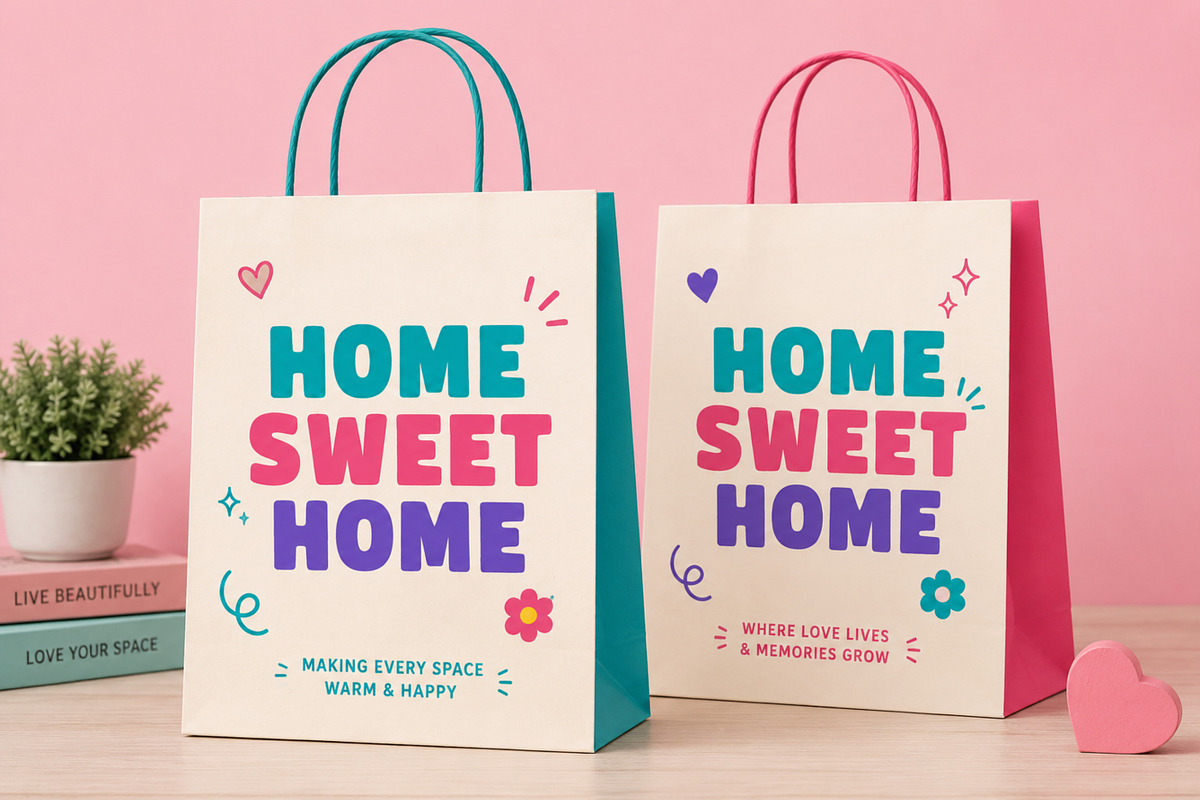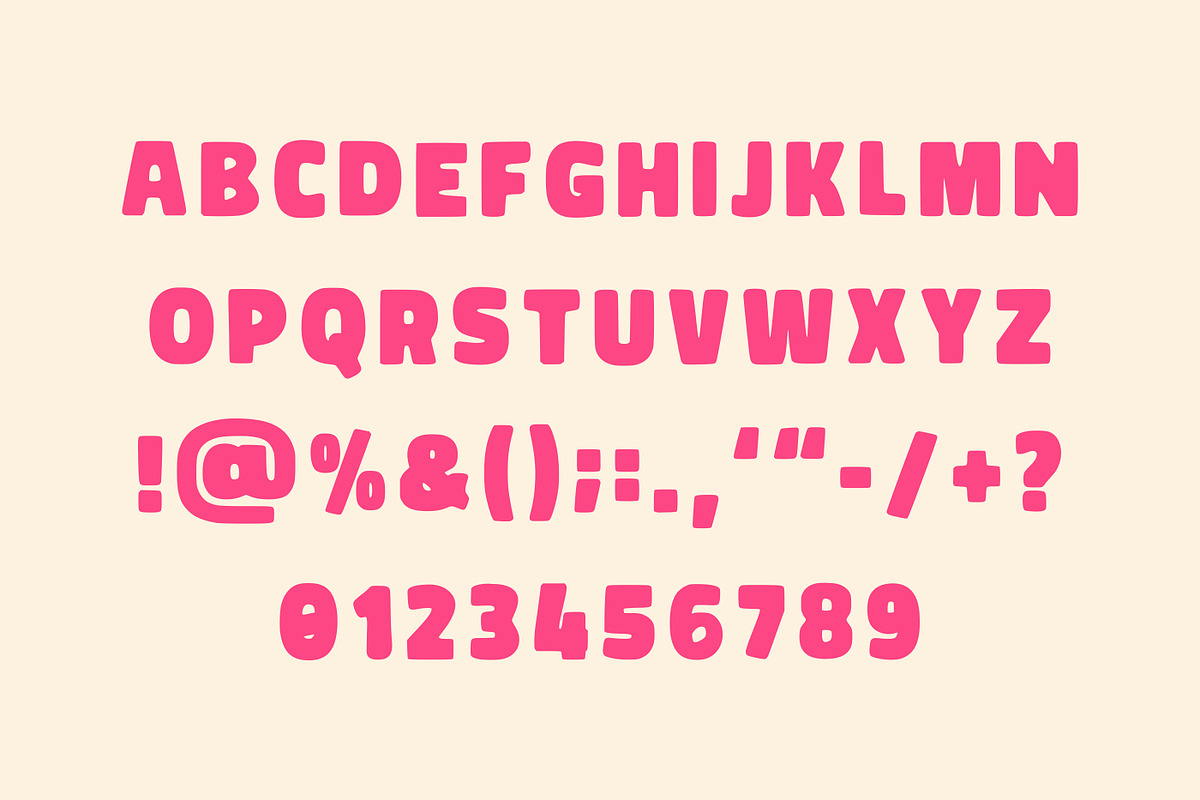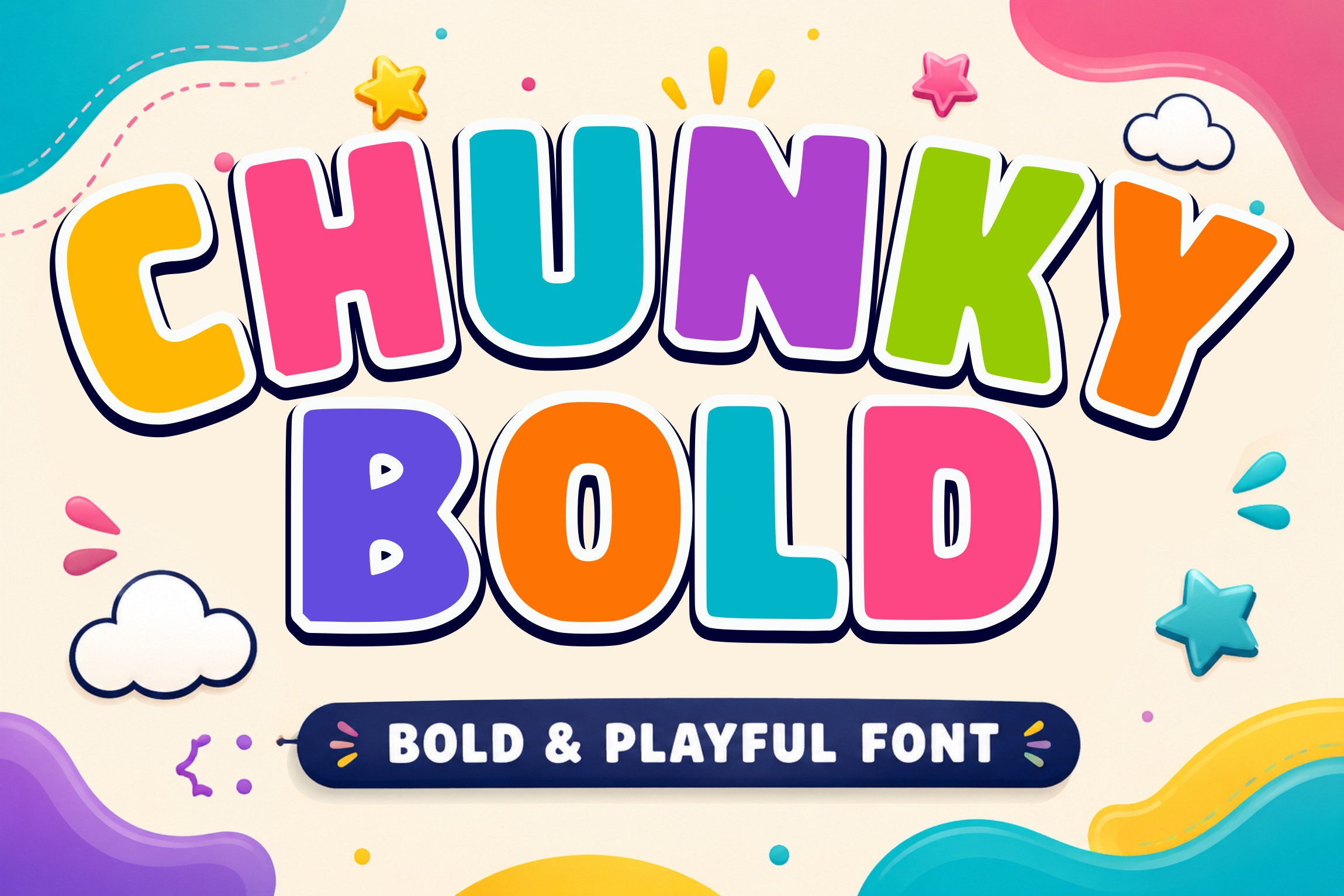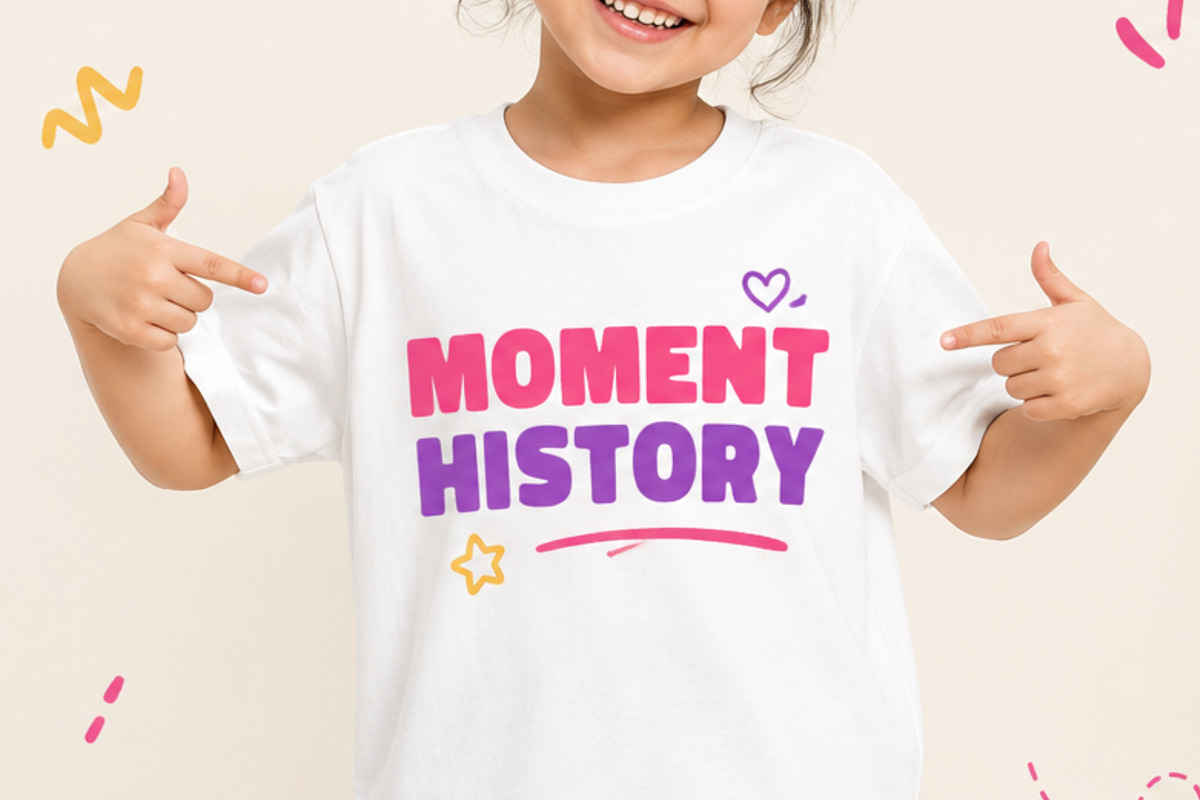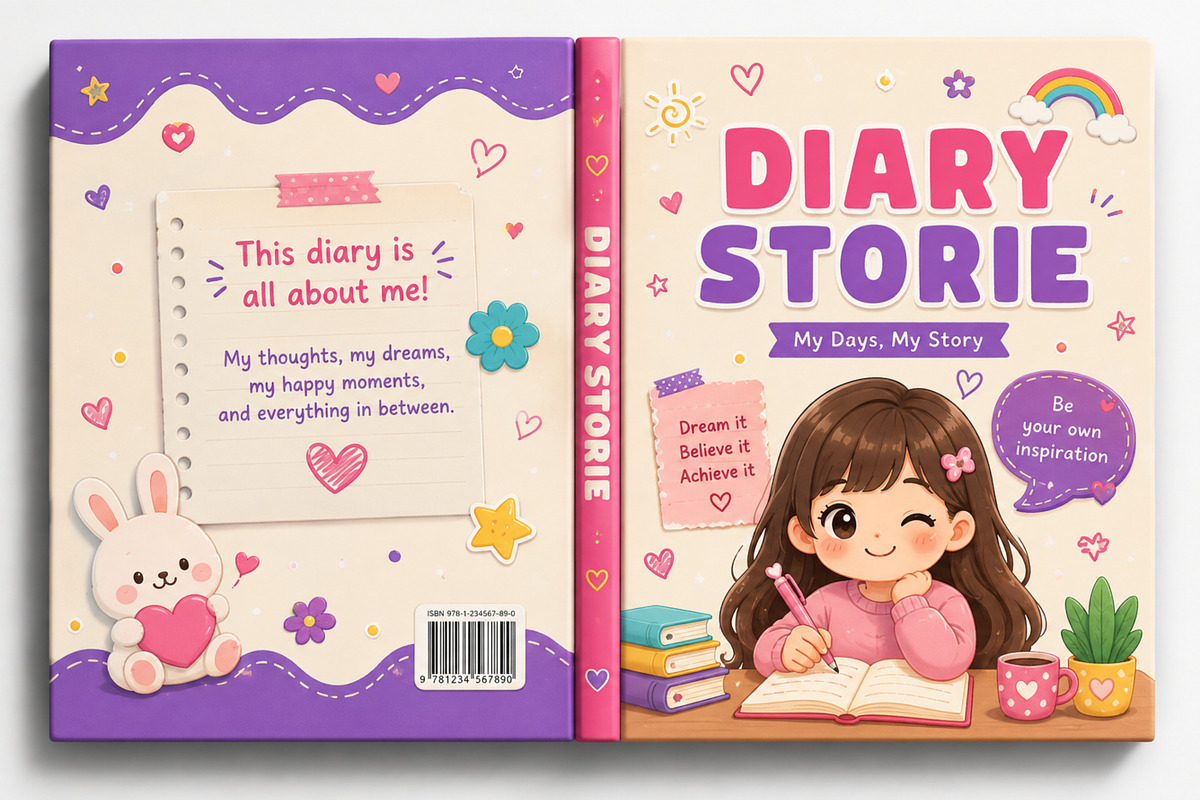
Chunky Bold – Fun Kids Font
Chunky Bold is a fun and energetic display font featuring thick rounded letterforms that instantly grab attention. Designed with a playful personality, this font is perfect for children's brands, educational resources, party decorations, toy packaging, merchandise, social media graphics, and creative DIY projects.
Its chunky shapes and friendly style make it highly readable while adding a joyful touch to any design. Whether you're creating classroom materials, colorful logos, YouTube thumbnails, stickers, or birthday invitations, Chunky Bold delivers a vibrant and memorable look.
Uppercase Letters
Bold Rounded Design
High Readability